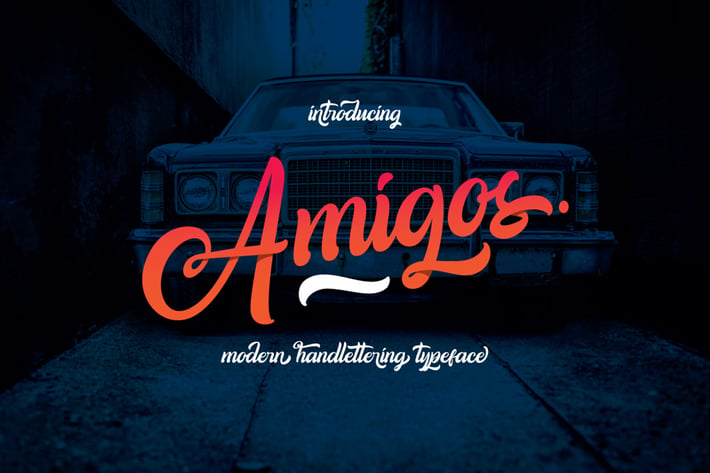
Amigos Typeface
Amigos Typeface is modern handlettering font, every single letters have been carefully crafted to make your text looks beautiful. With modern style this font will perfect for many different project ex: quotes, blog header, poster, wedding, branding, logo, fashion, apparel, letter, invitation, stationery, etc.
The Amigos Typeface features:
Uppercase & lowercase
Stylistic alternatives & swashes
Ligatures
Initials & finals
International characters (Multilingual)
Punctuation & symbols